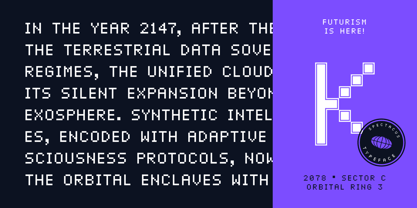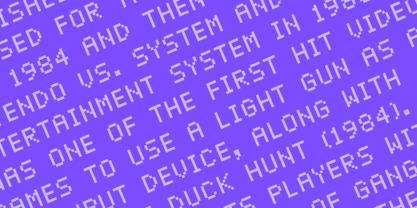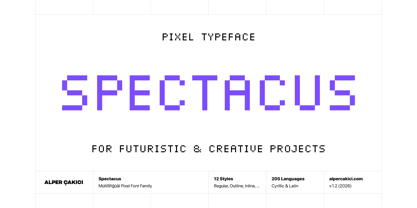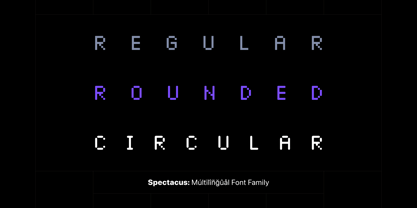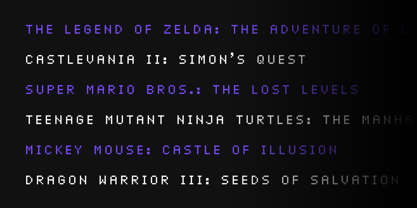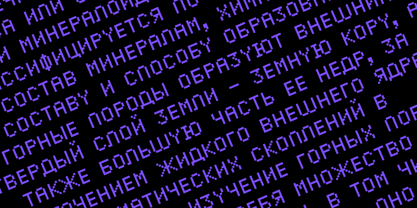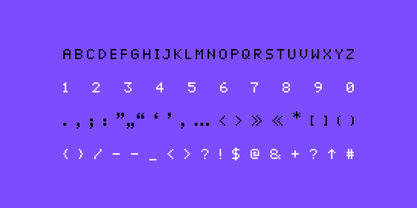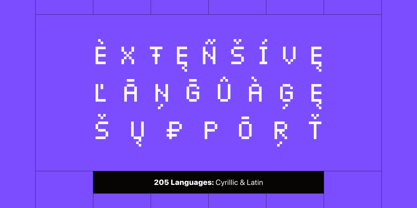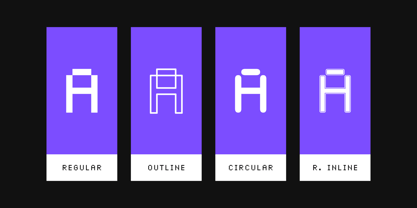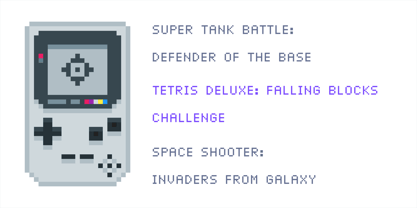
Spectacus
The Spectacus Font Family was designed by Alper Çakıcı and published by AlperCakici. Spectacus contains 1 styles. More about this family
Spectacus is not just any pixel font; it's a meticulously crafted typeface with exceptional kerning, making it a top choice for digital and print applications alike. Whether you're designing a website, creating marketing materials, or working on a digital project, Spectacus delivers unparalleled clarity and readability.
What sets Spectacus apart is its comprehensive support for the Cyrillic language, ensuring seamless communication across different languages and regions. This multilingual capability makes Spectacus a versatile and globally relevant font choice.
Designed with a perfect blend of classic proportions and modern aesthetics, Spectacus stands out from other fonts in its category. Its unique design elements add a touch of sophistication to any text, making it ideal for branding, headlines, and more.
But that's not all—Spectacus goes above and beyond by supporting a whopping 92 languages. From Belarusian to Zulu, Spectacus ensures that your content can reach a diverse audience without compromising on style or quality.
In summary, Spectacus offers:
• Excellent kerning for optimal readability
• Full support for the Cyrillic language
• Unique design combining classic and contemporary elements
• Seamless multilingual communication with support for 92 languages
Experience the power of Spectacus and elevate your typography game to new heights.